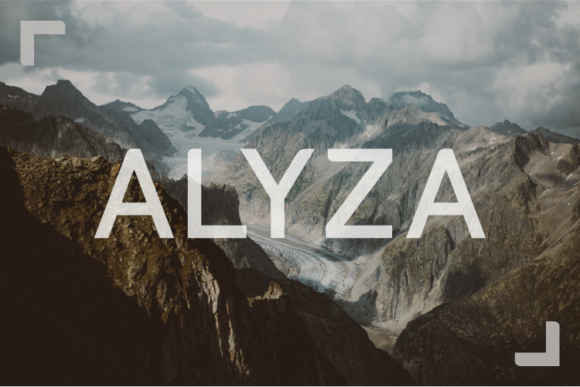
Welcome to the realm of Alyza Font, a captivating sans serif font that exudes simplicity, casualness, and an undeniable aura of cleanliness. Its meticulously crafted letters, arranged with precision, promise to elevate your designs, both formal and informal, to new heights of sophistication.
Alyza is the perfect font for bold numbers, inviting attention with its captivating presence. Unleash your creativity and let Alyza's clean lines guide you toward remarkable designs. This versatile font spells elegance and clarity, ensuring your message shines through with unwavering impact. Embrace the boundless possibilities of Alyza, the font that transforms your words into masterpieces.
With Alyza as your font of choice, you unlock a world of limitless expression. Its timeless charm lends itself effortlessly to a multitude of projects, enhancing logos, branding, posters, and web designs with a touch of sophistication. The visual appeal of Alyza is undeniable, leaving an unforgettable impression on your audience.
Dare to be bold, to stand out, to make a statement. Let Alyza be your trusty companion, empowering you to craft designs that captivate and inspire. Experience the transformative power of Alyza, the font that ignites your creativity and sets your projects ablaze.